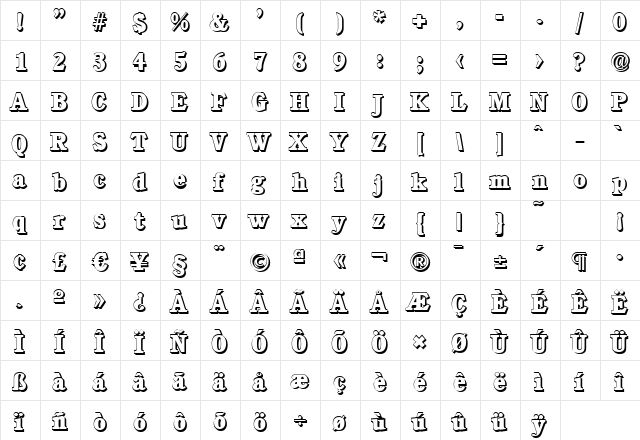
DanielBeckerShadow-ExtraBold Regular Font Preview
DanielBeckerShadow-ExtraBold Regular
DanielBeckerShadow-ExtraBold Regular Font Details
Design Context for DanielBeckerShadow-ExtraBold Typeface
DanielBeckerShadow-ExtraBold brings ornamental detail and strong personality to headlines and identities, where visual impact matters more than quiet functionality. Its bold stroke weight gives it real presence on the page.
Font Pairing: Pair with a clean neutral sans-serif for body copy to let DanielBeckerShadow-ExtraBold's character lead without overwhelming the composition.
Pro Tip: Use DanielBeckerShadow-ExtraBold exclusively at display sizes — it was designed to be seen, not read at length. Let a neutral companion handle body copy.